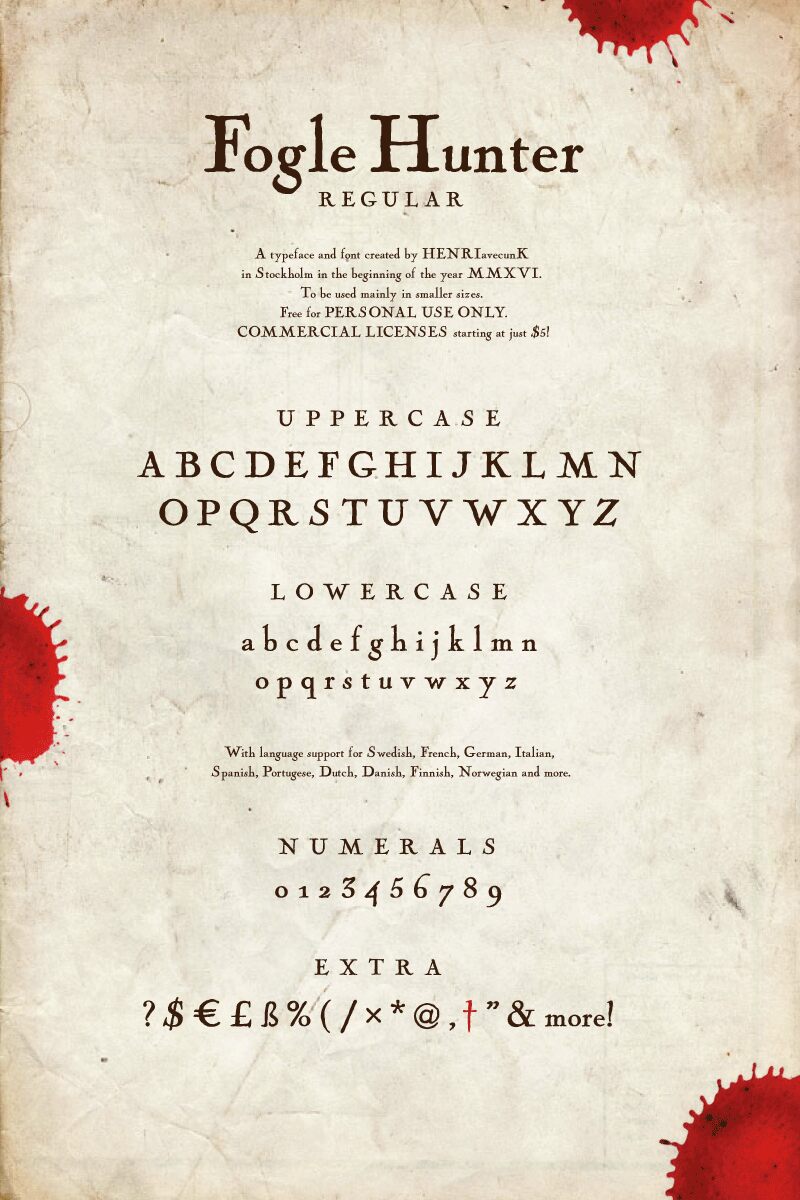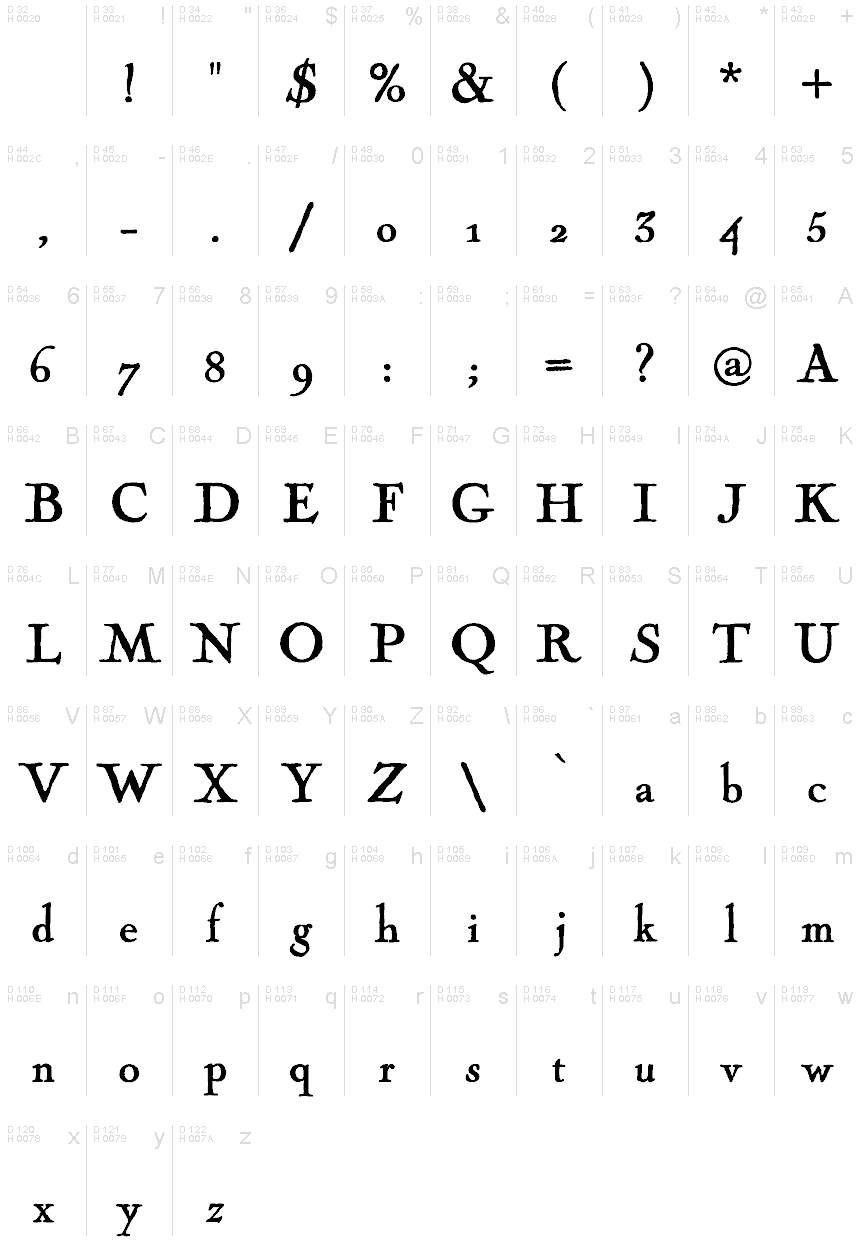
Fogle Hunter Regular
Fogle Hunter regular is a rustic but fancy typeface straight outta the 17th century.
The font Fogle Hunter regular is suitable for oldstyle formal letters, treasure maps or just about anything that needs an old school feeling. Use mainly for small print.
Fogle Hunter Regular is a font designed by HENRIavecunK Type Co in 2016 and 2024.